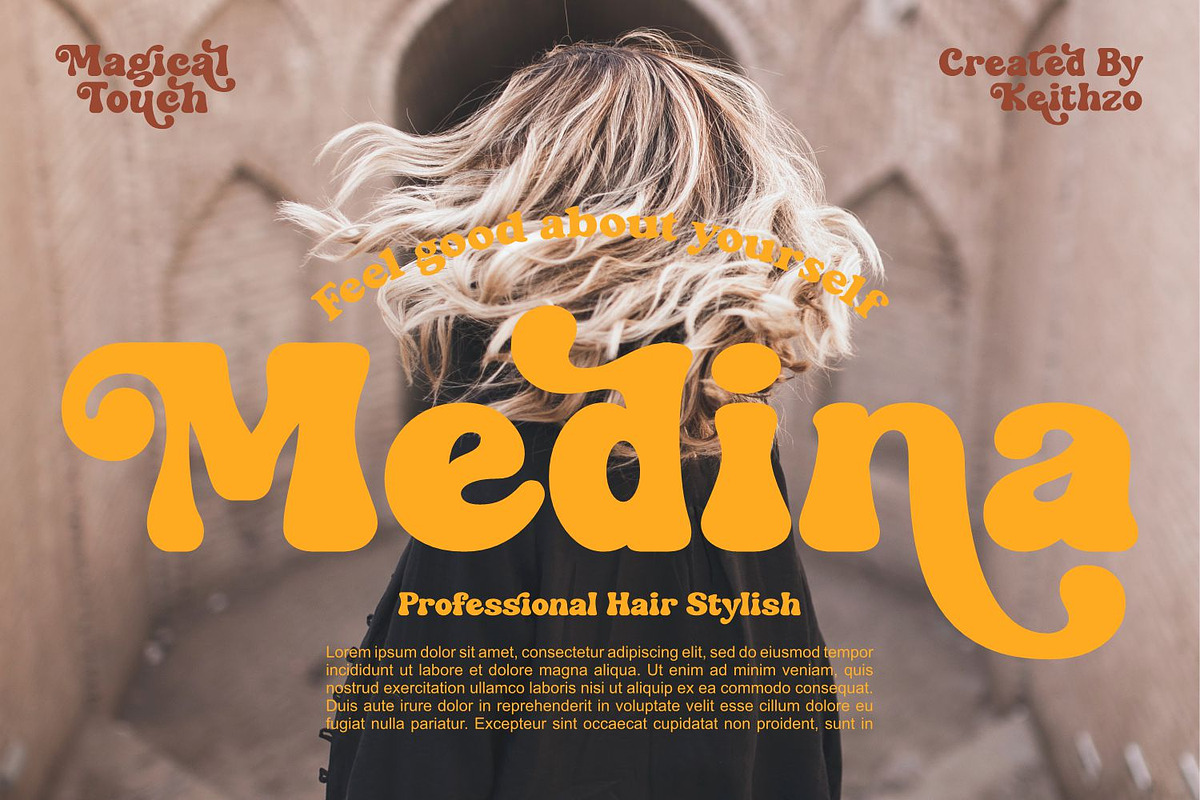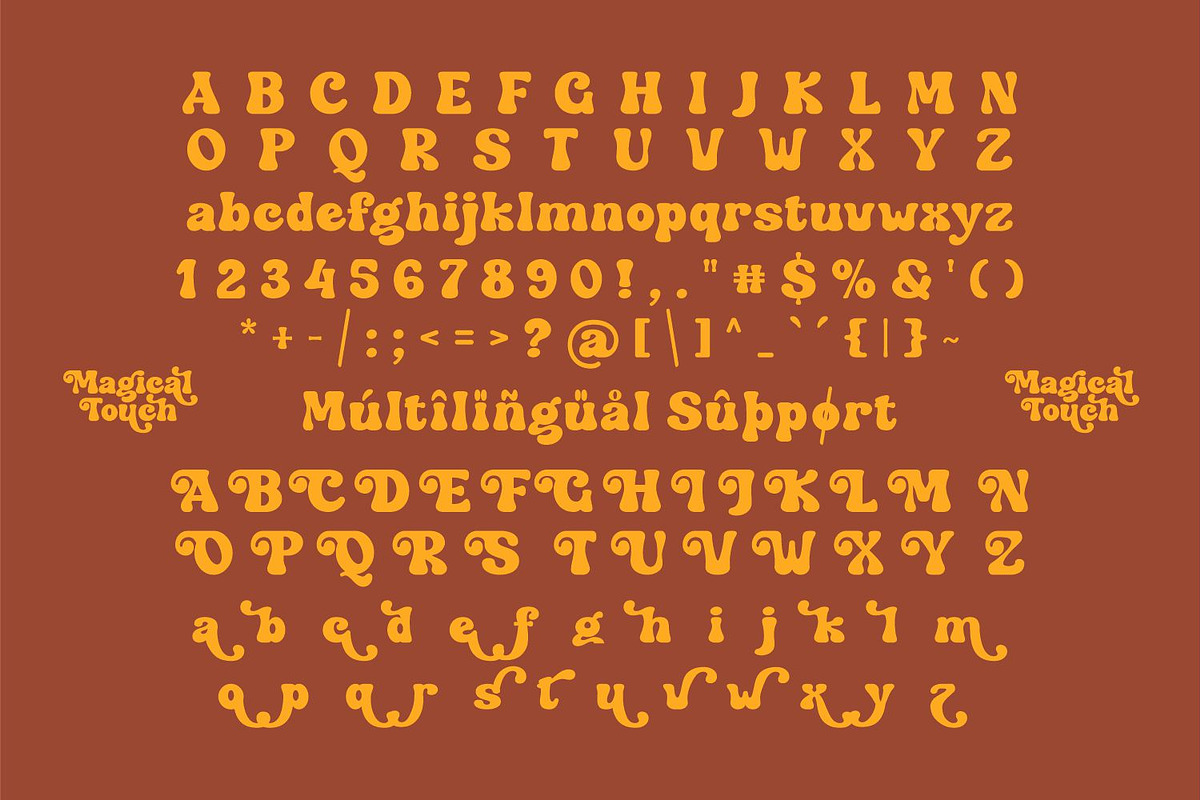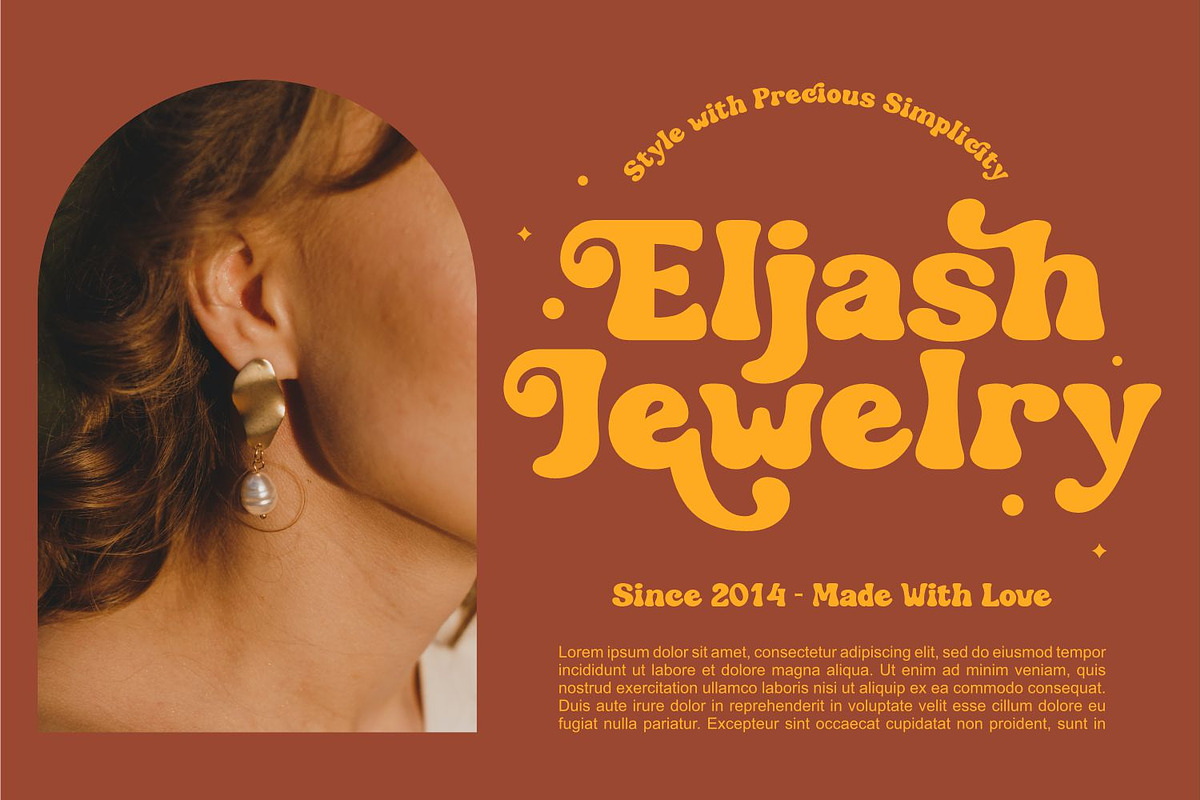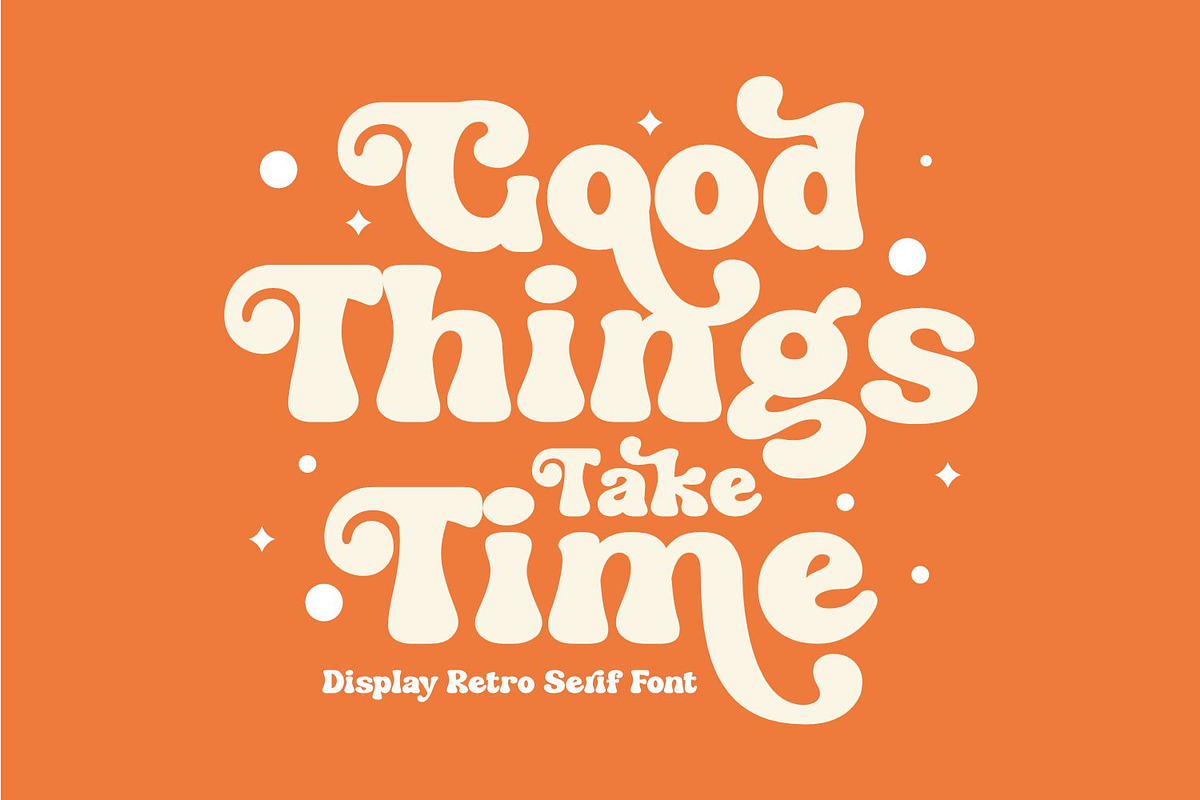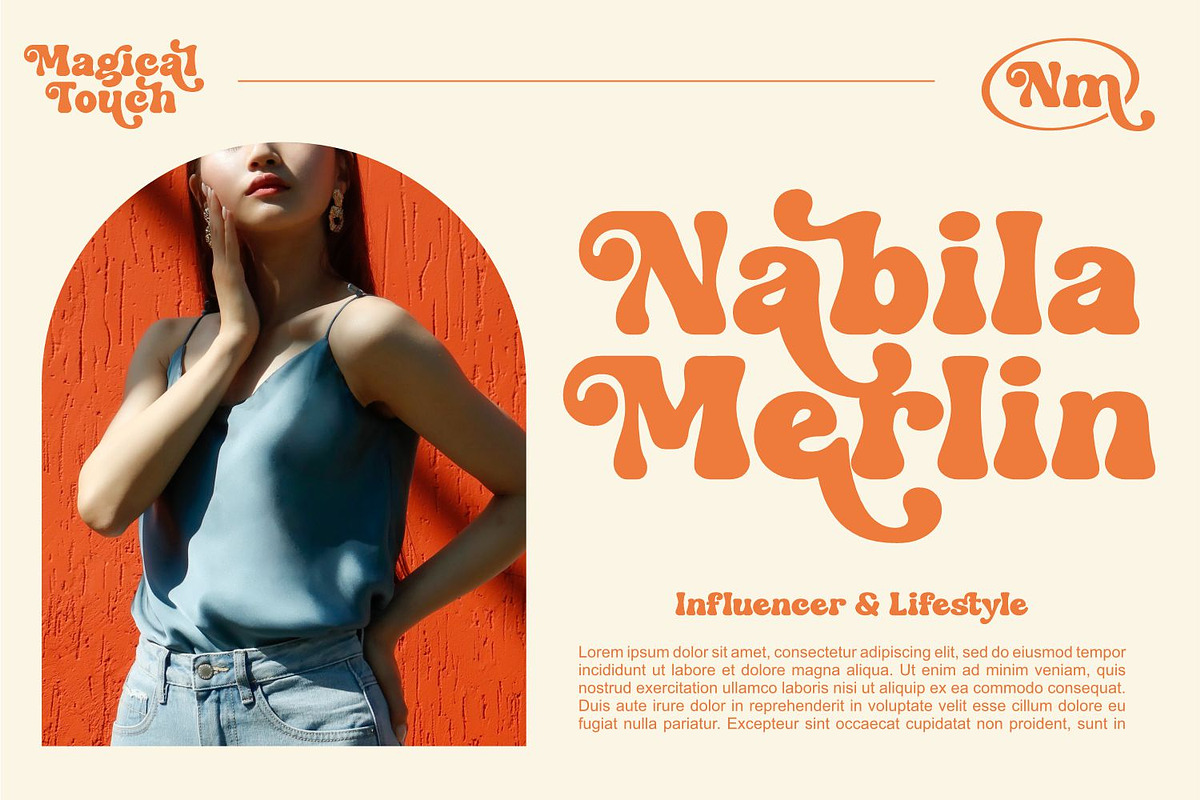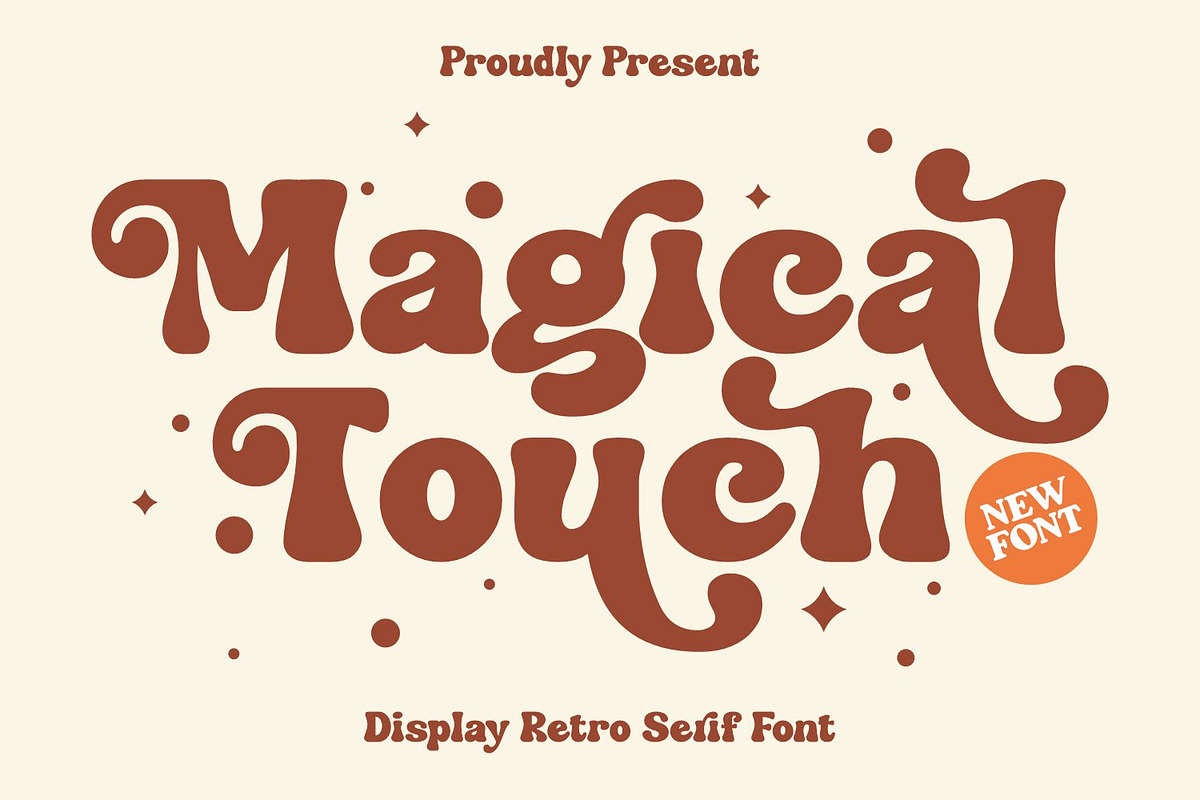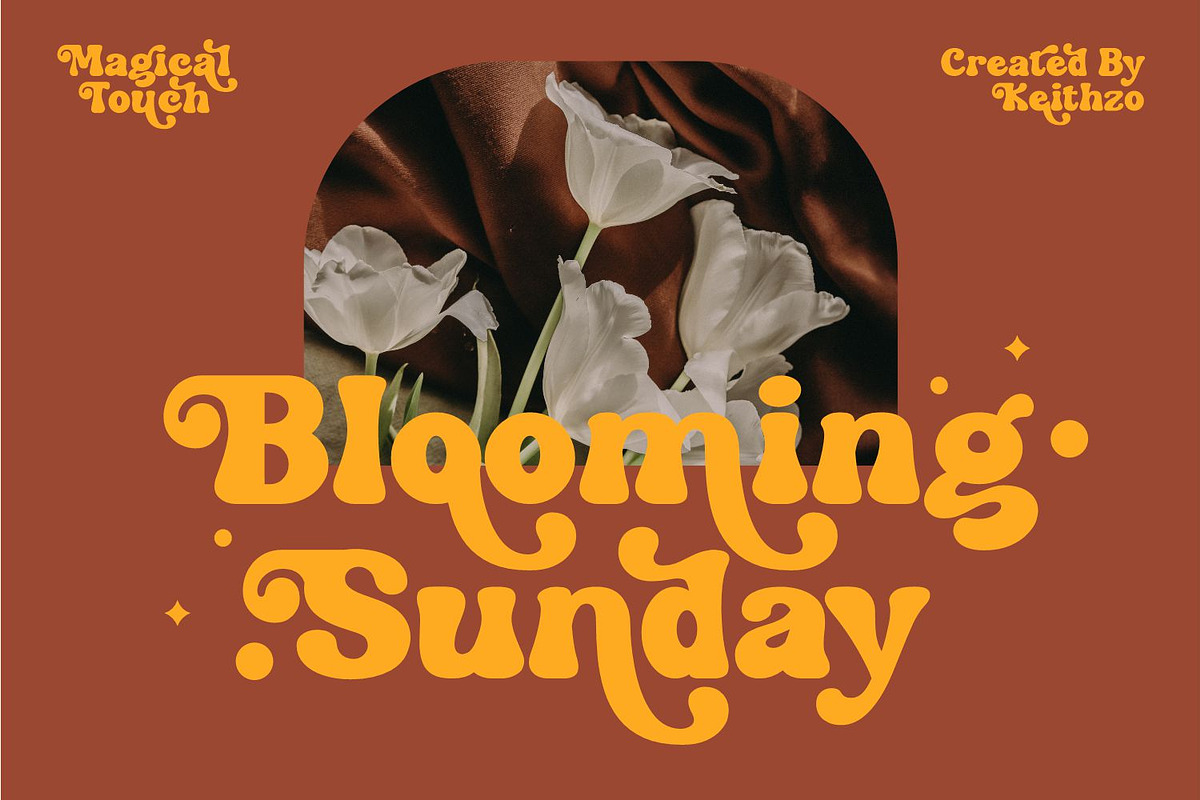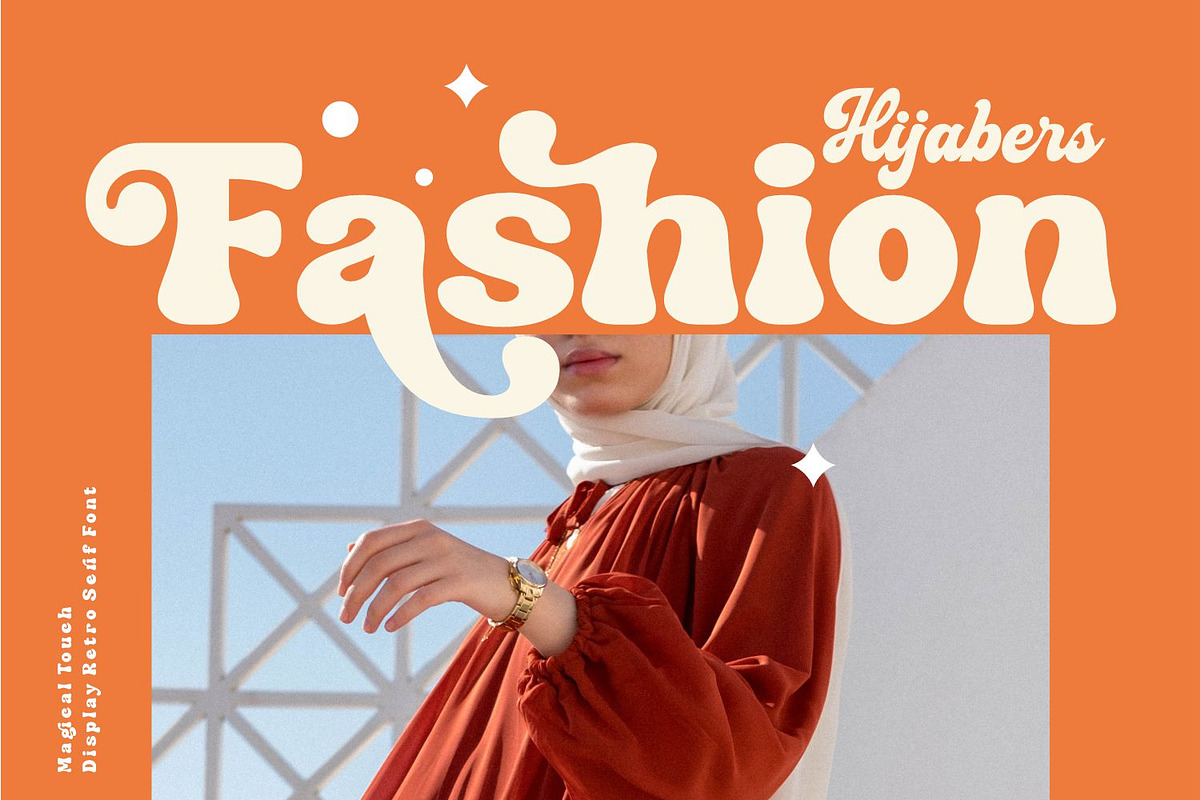
Magical Touch - Retro Serif Font
Magical Touch is an elegant and bold serif font. Fall in love with its incredibly versatile style and use it to create gorgeous wedding invitations, beautiful stationary art, eye-catching social media posts, and much more!
Stylistic and Ligatures
Accented characters
Multiple Languages Supported